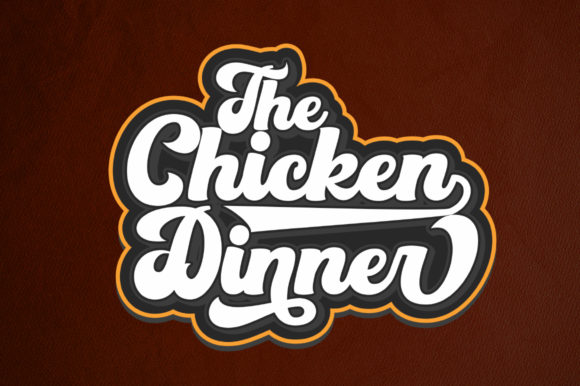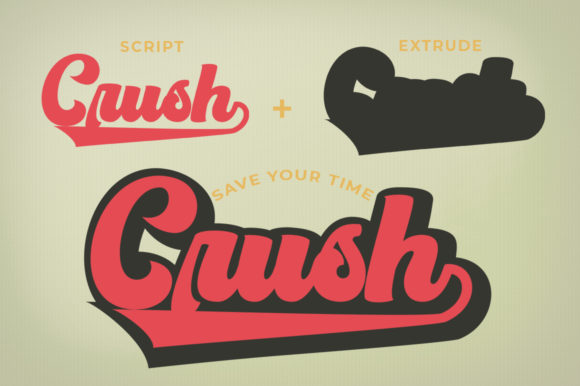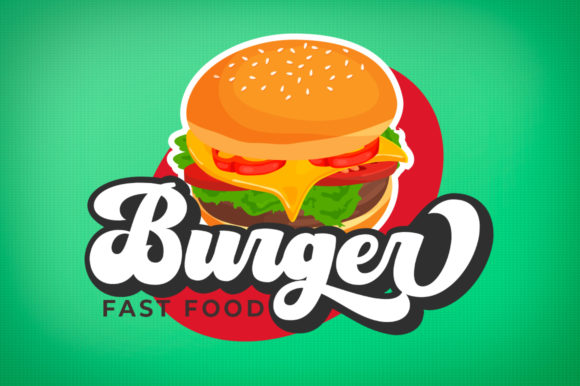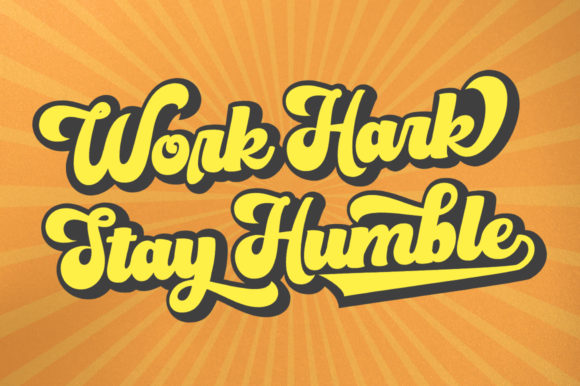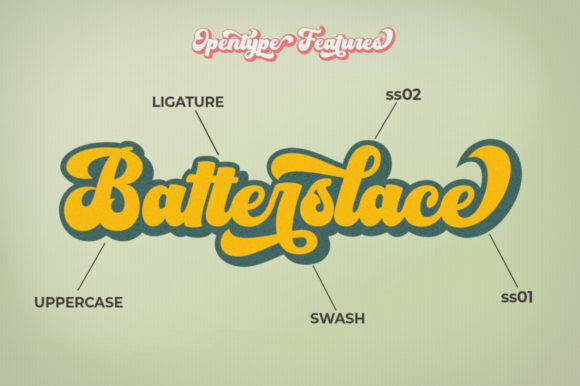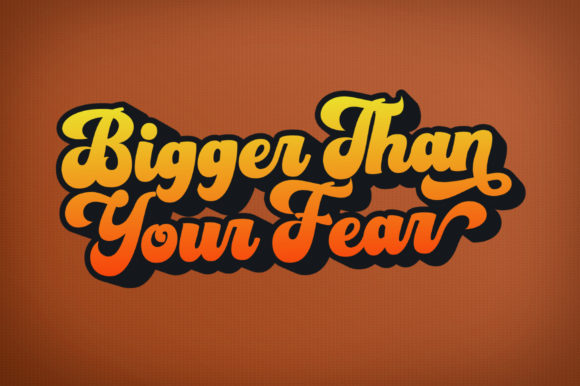
Introduction to Groenly Script Font
Have you ever found yourself rummaging through your design resources, searching for that perfect font to elevate your creative project? For many designers, this is a familiar experience. But what if I told you that you can find a high-quality, free download font that’s sure to give your design a retro edge?
Meet the Groenly Script Font, a calligraphic masterpiece that’s about to take your designs to the next level. With its groovy feel and transparent background, this font is perfect for designers looking to add a touch of sophistication to their work.
Whether you’re working on a branding project or creating a social media graphic, the Groenly Script Font is a valuable addition to any design arsenal. So why settle for an ordinary font when you can have a classic that’s sure to make your design stand out?
Key Features of Groenly Script Font
- Unique Handwritten Design: The Groenly Script Font boasts a distinctive handwritten style, making it perfect for creative projects that require a touch of personality.
- Perfect for Wedding Invitations and More: The elegant and stylish design of the Groenly Script Font makes it an ideal choice for wedding invitations, greeting cards, and other creative projects.
- Easy to Customize: With its unique characteristics and high-quality design, the Groenly Script Font is easy to customize and adapt to your specific design needs.
Honest Review: Groenly Script Font
I recently stumbled upon the Groenly Script Font, and I must say it’s been a great addition to my design resource library. The moment I downloaded it, I knew it had the potential to elevate my creative project to the next level.
What works well with the Groenly Script Font is its versatility. It can be used for a variety of projects, from elegant wedding invitations to modern branding materials. The high quality of the font is evident in its smooth lines and well-balanced typography.
One of the standout features of the Groenly Script Font is its transparent background, making it easy to use on any design without worrying about a distracting background. This feature has saved me a lot of time in my design workflow.
While the Groenly Script Font is a great resource, there are a few limitations to consider:
- It may not be suitable for projects requiring a more formal or serious tone, as it has a more elegant and sophisticated feel.
Overall, I’m impressed with the Groenly Script Font and would highly recommend it to designers looking for a high-quality, free download to add to their design library. With a little creativity, this font can be a game-changer for any creative project.
Tips for Getting the Most Out of Groenly Script Font
To get the most out of the Groenly Script Font, use it for creative projects that require a high-quality, elegant font. This font is particularly well-suited for wedding invitations, birthday cards, and other special occasion designs. You can also use it for branding and logo design projects.
The Groenly Script Font is a versatile design resource that can be used in a variety of creative projects. Some common use cases include:
- Birthdays and special occasion cards
- Book covers and publishing materials